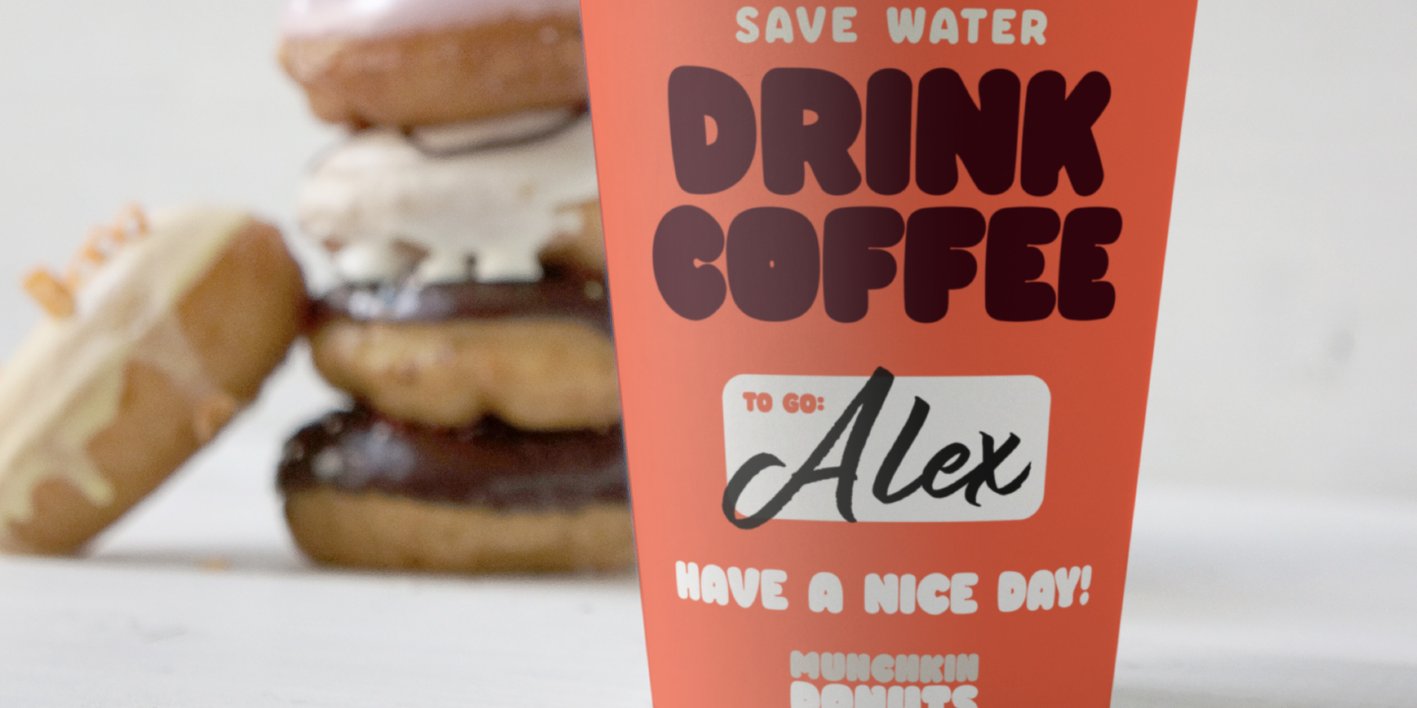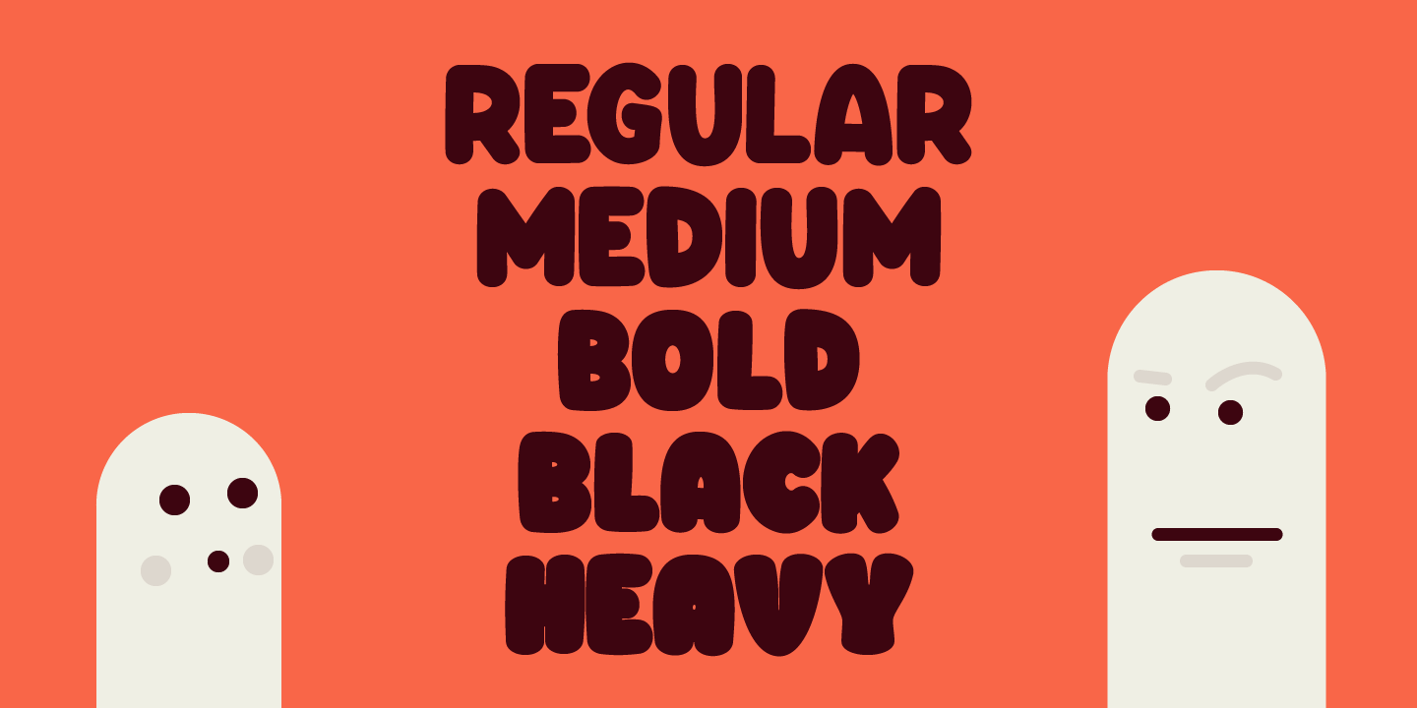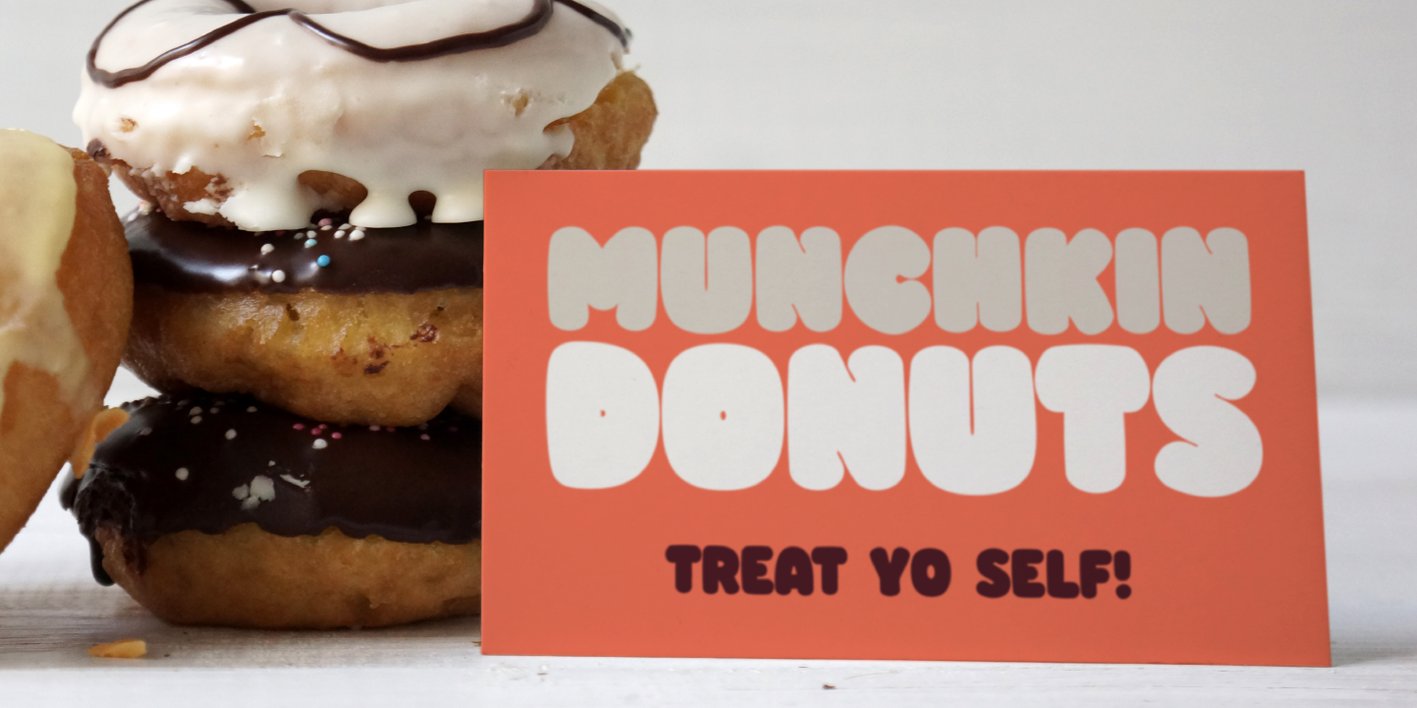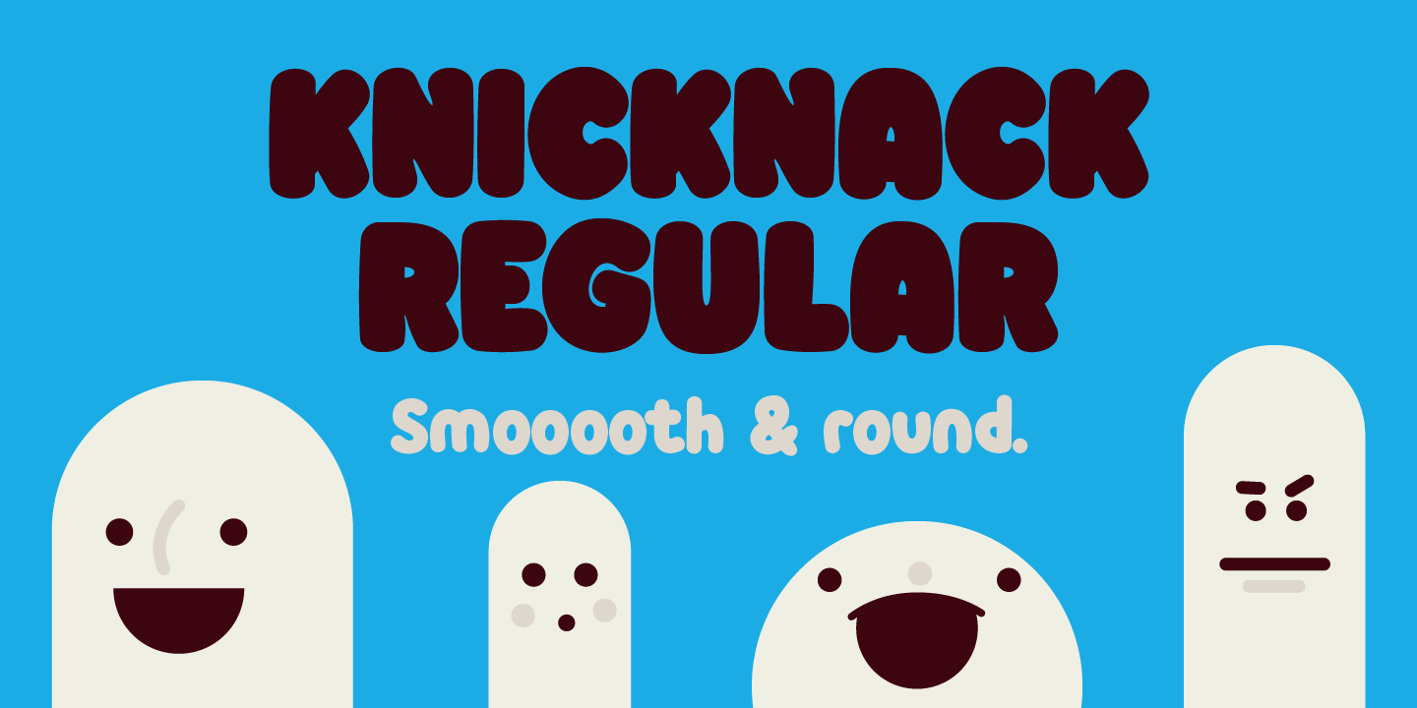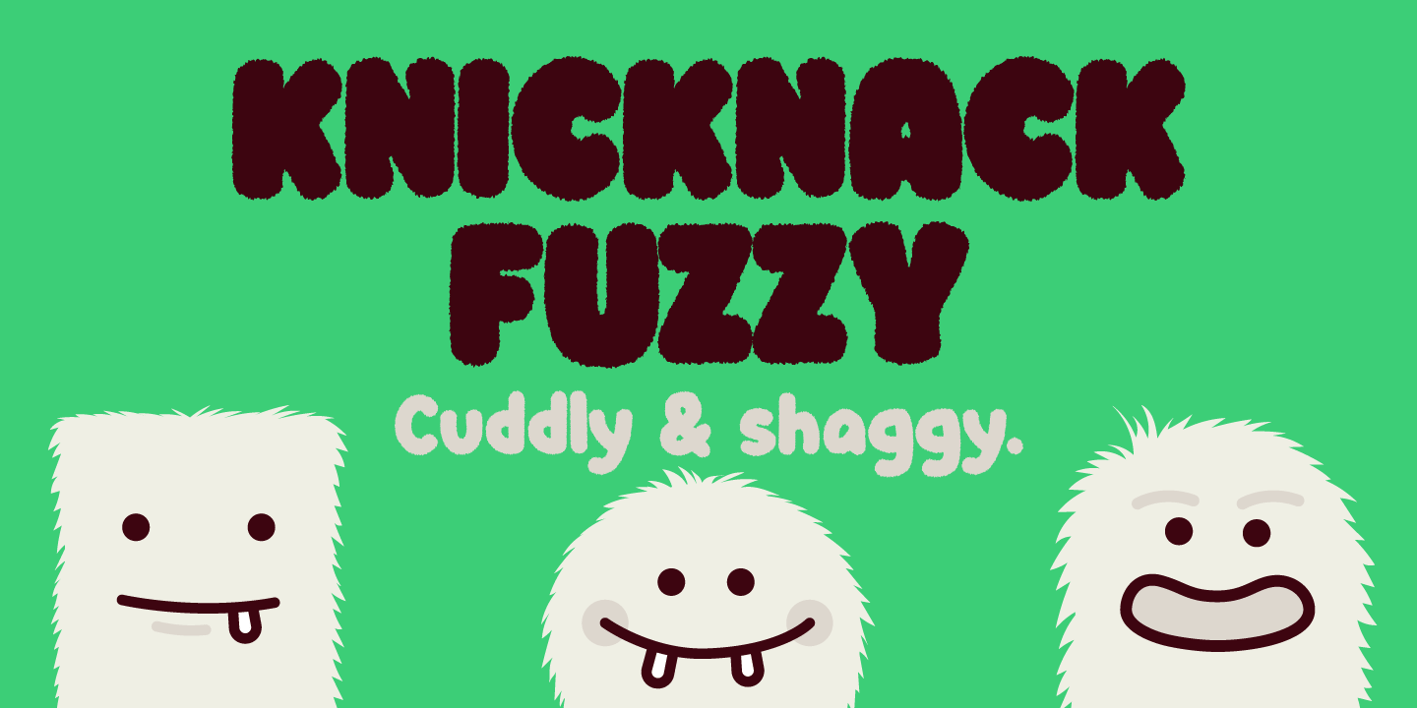
KNICKNACK Font
It's here! Lumbering down the grassy slope towards us, the lovable round sans serif of KNICKNACK. It's warm, it's smooth, it's round and it's fuzzy. It's perfect for display use, print, posters, branding, packaging or kids friendly apps and web! KNICKNACK is a typeface that will put a smile on your face. It features 2 styles, regular and fuzzy and comes in at least 5 weights.